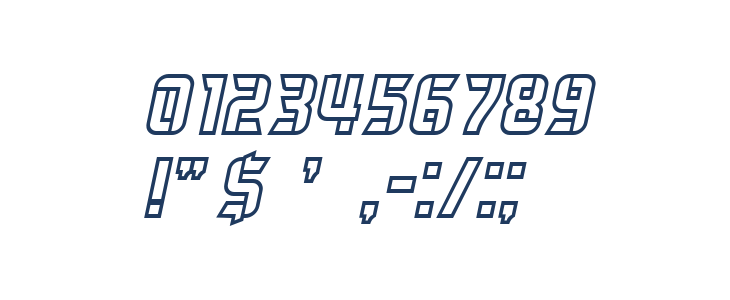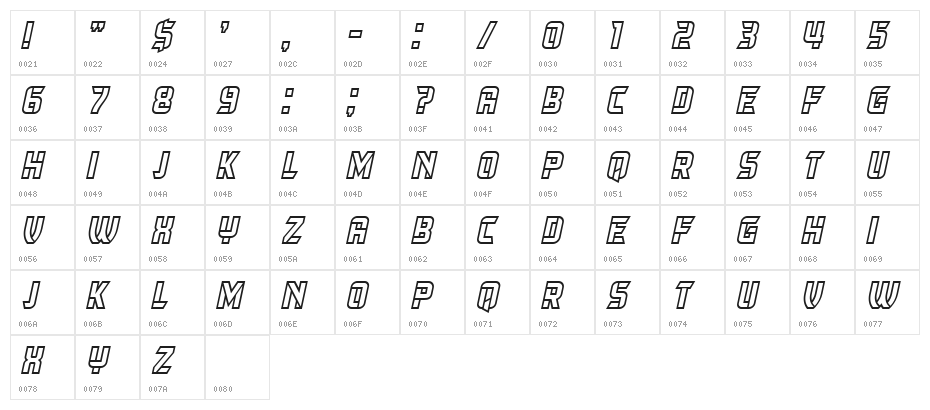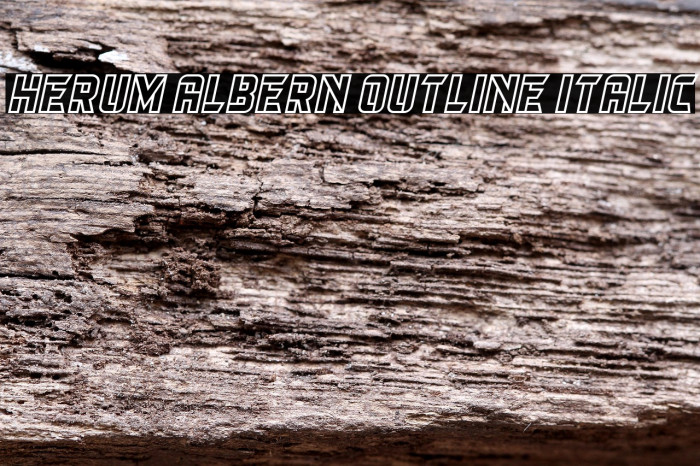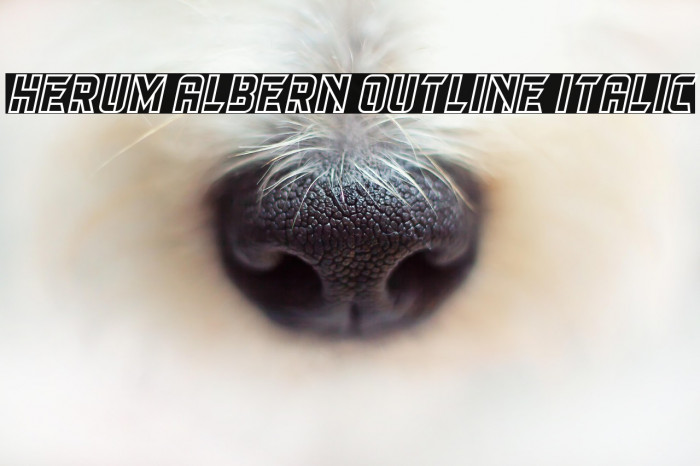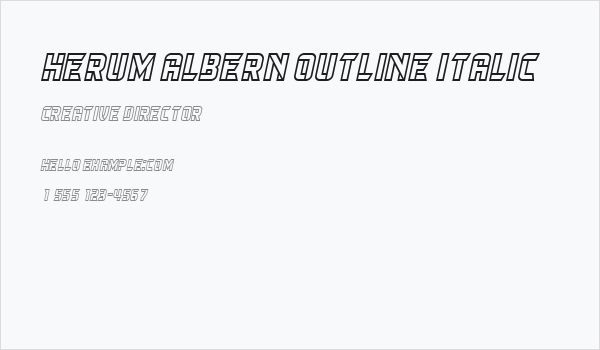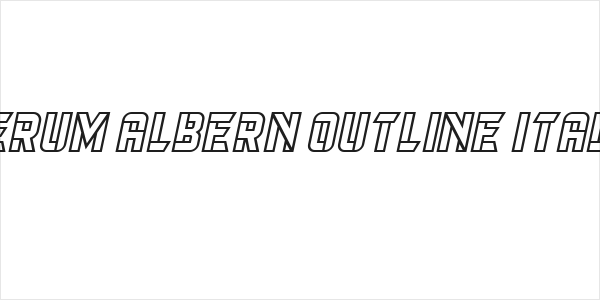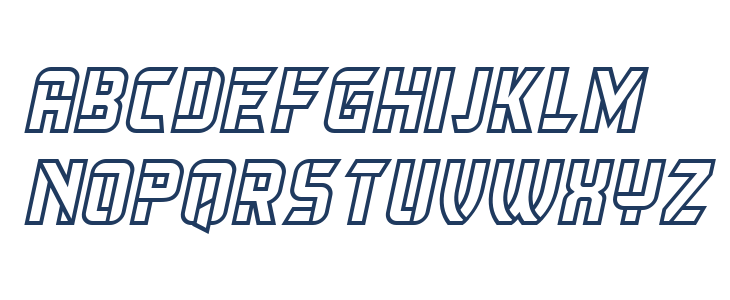
Herum Albern Outline Italic Font
Herum Albern Outline Italic Description
This font features a bold, outlined style with a distinct italic slant, giving it a dynamic and modern appearance. The uppercase and lowercase letters maintain a consistent geometric structure, with sharp angles and clean lines that enhance its contemporary feel. The numerals and special characters are designed to match the overall aesthetic, providing a cohesive look across all glyphs. The outline effect adds a layer of depth, making it suitable for eye-catching designs. Its unique style is perfect for projects that require a bold statement.
Proposed ProjectsIdeal for logos, posters, headlines, and branding materials that require a striking and modern look.